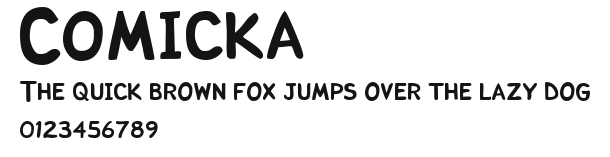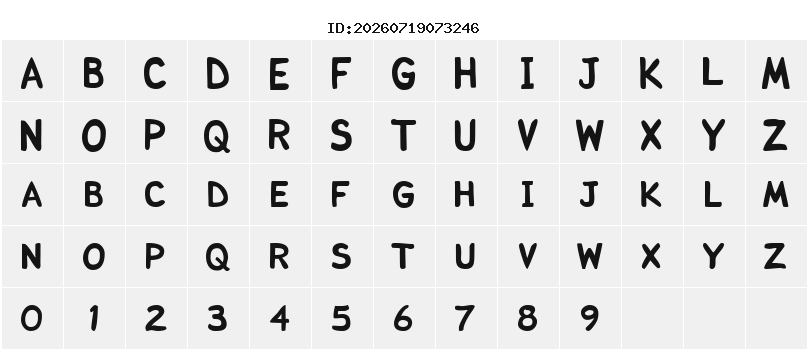
• Font Name: Comicka
About Comicka.ttf
Comicka.ttf is a modern, elegant sans-serif font designed for ultimate readability and visual harmony. Perfect for branding, headlines, web design, and print materials.